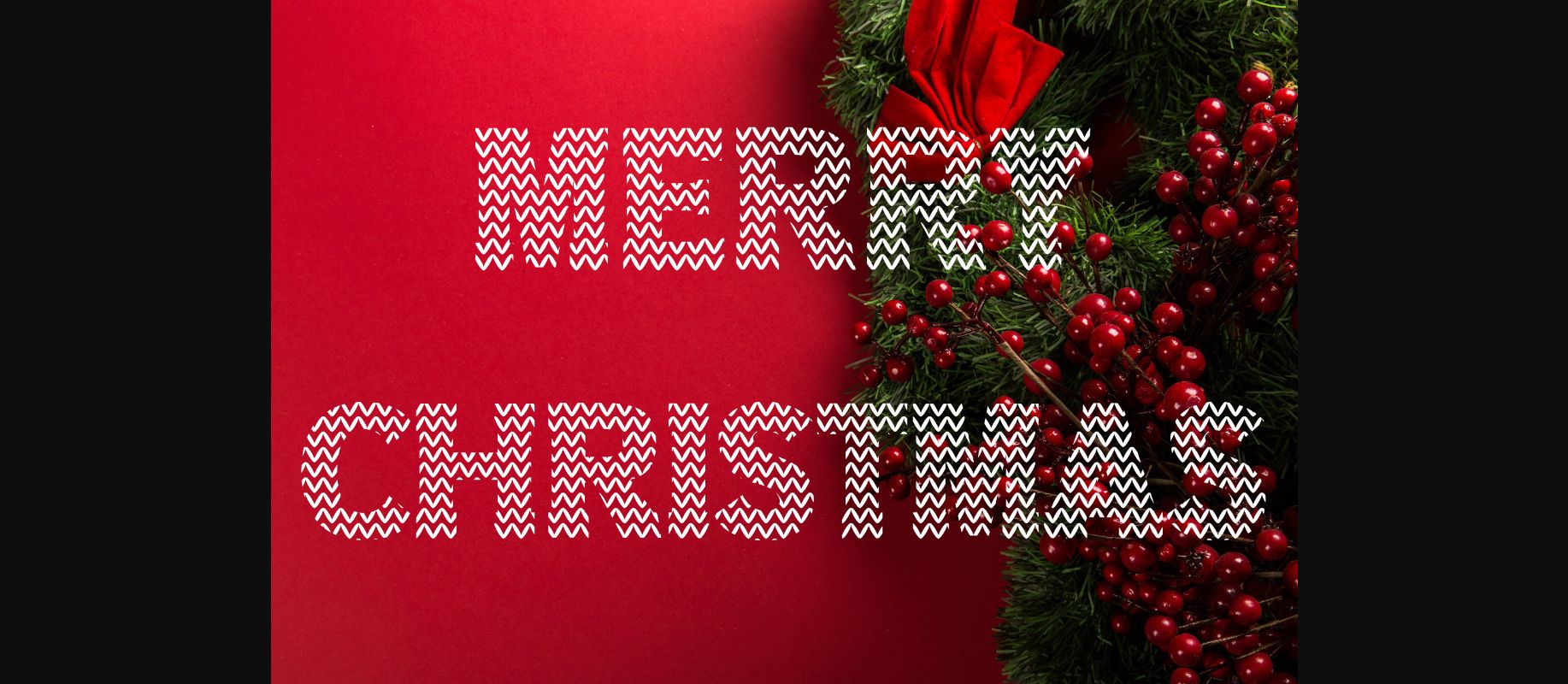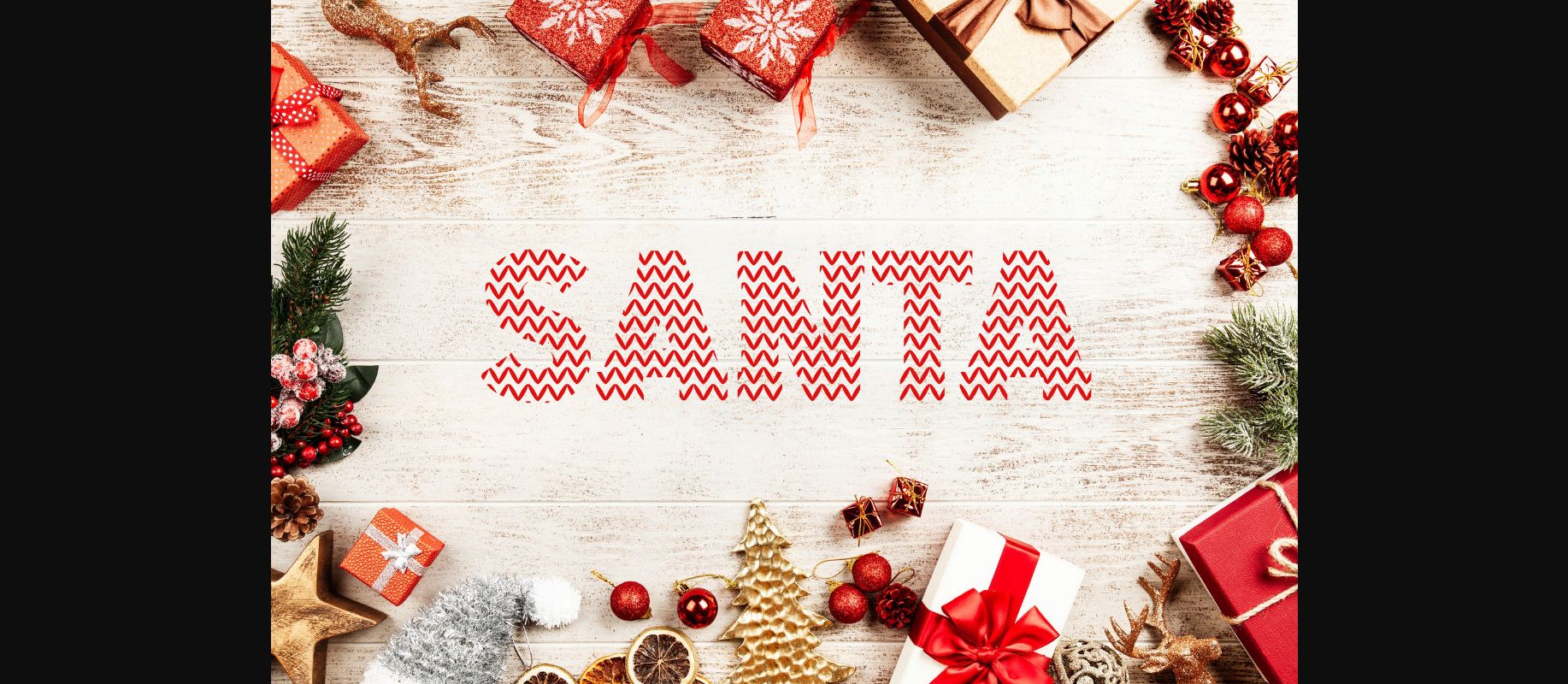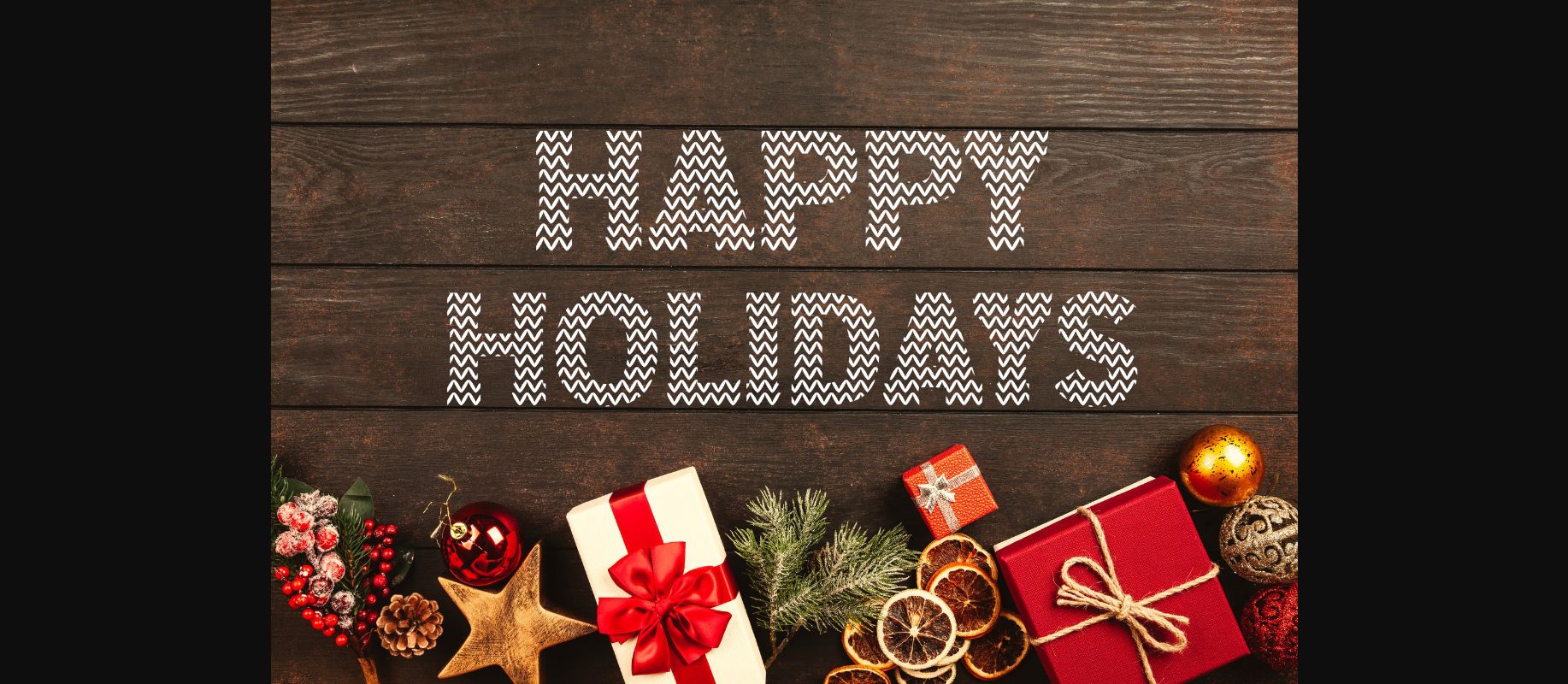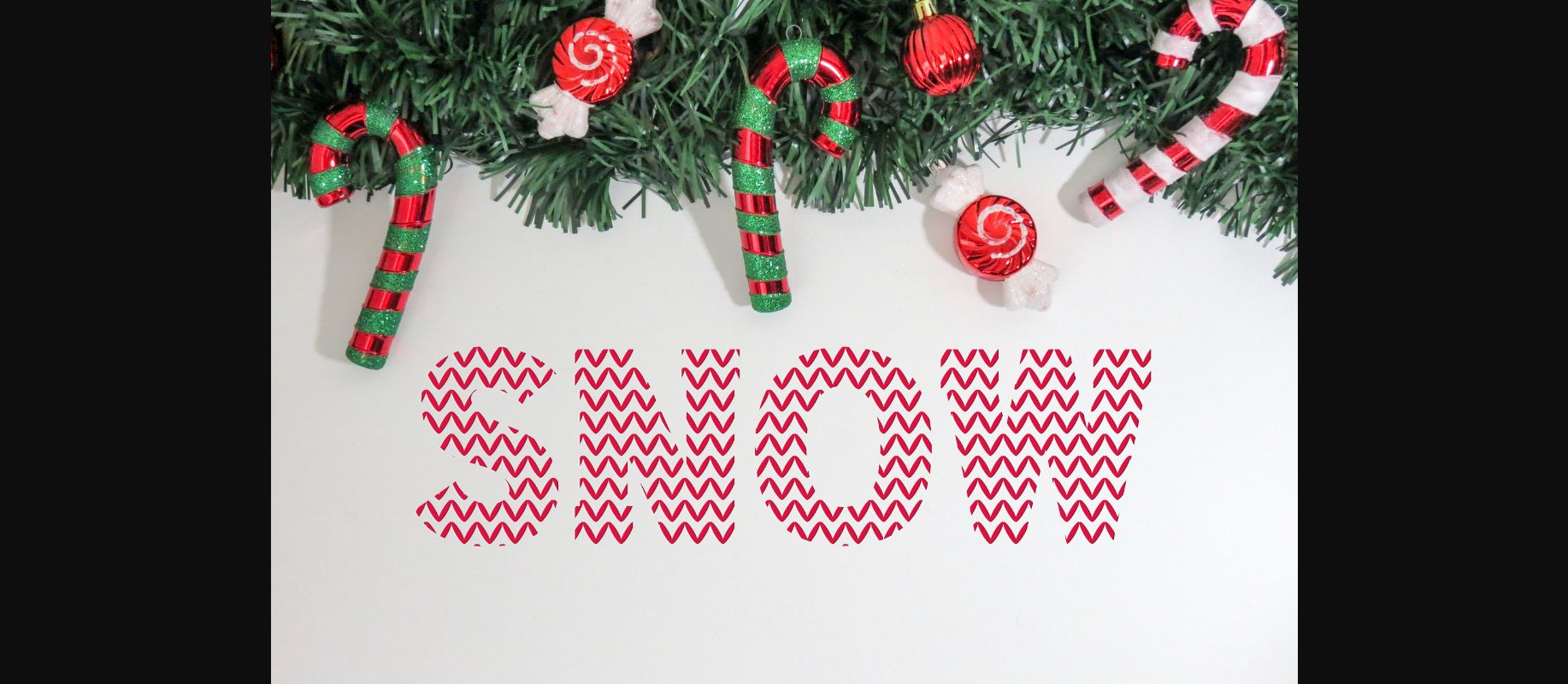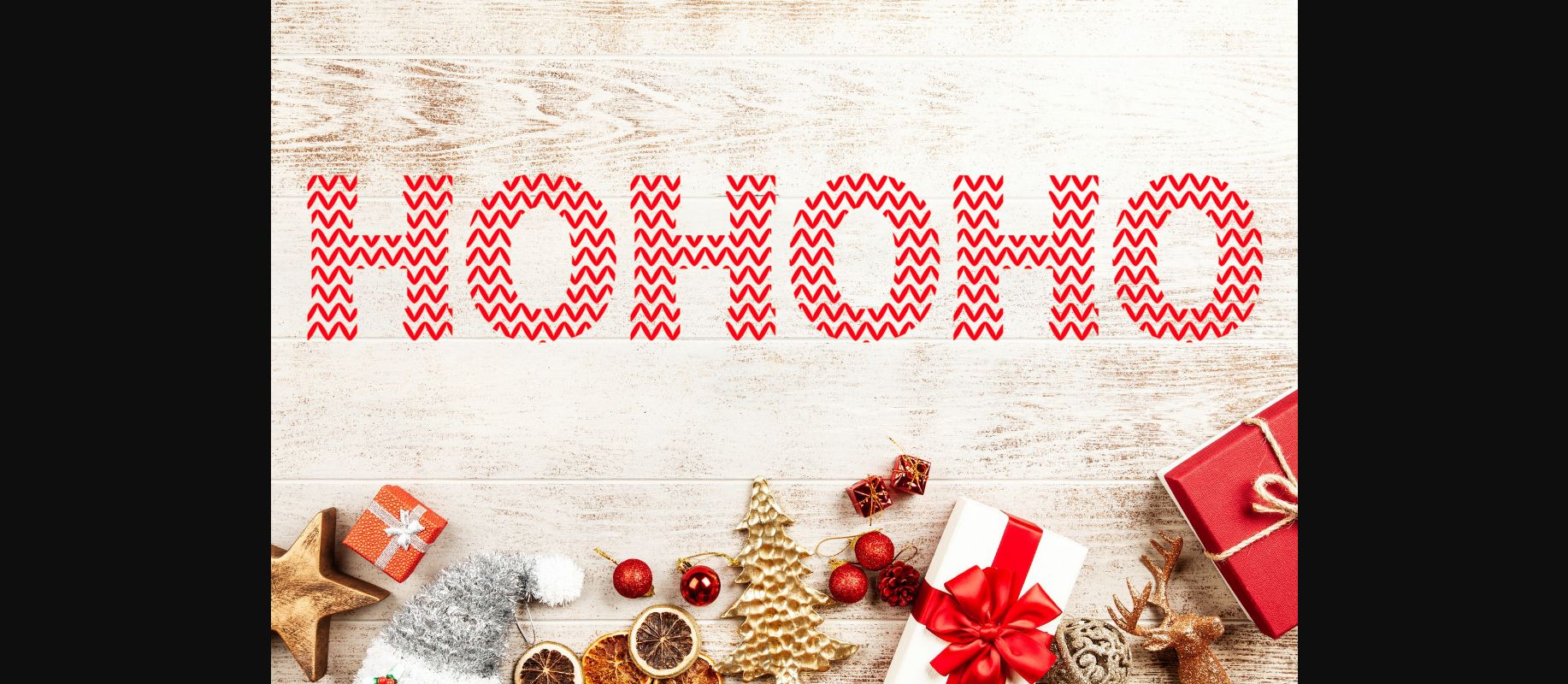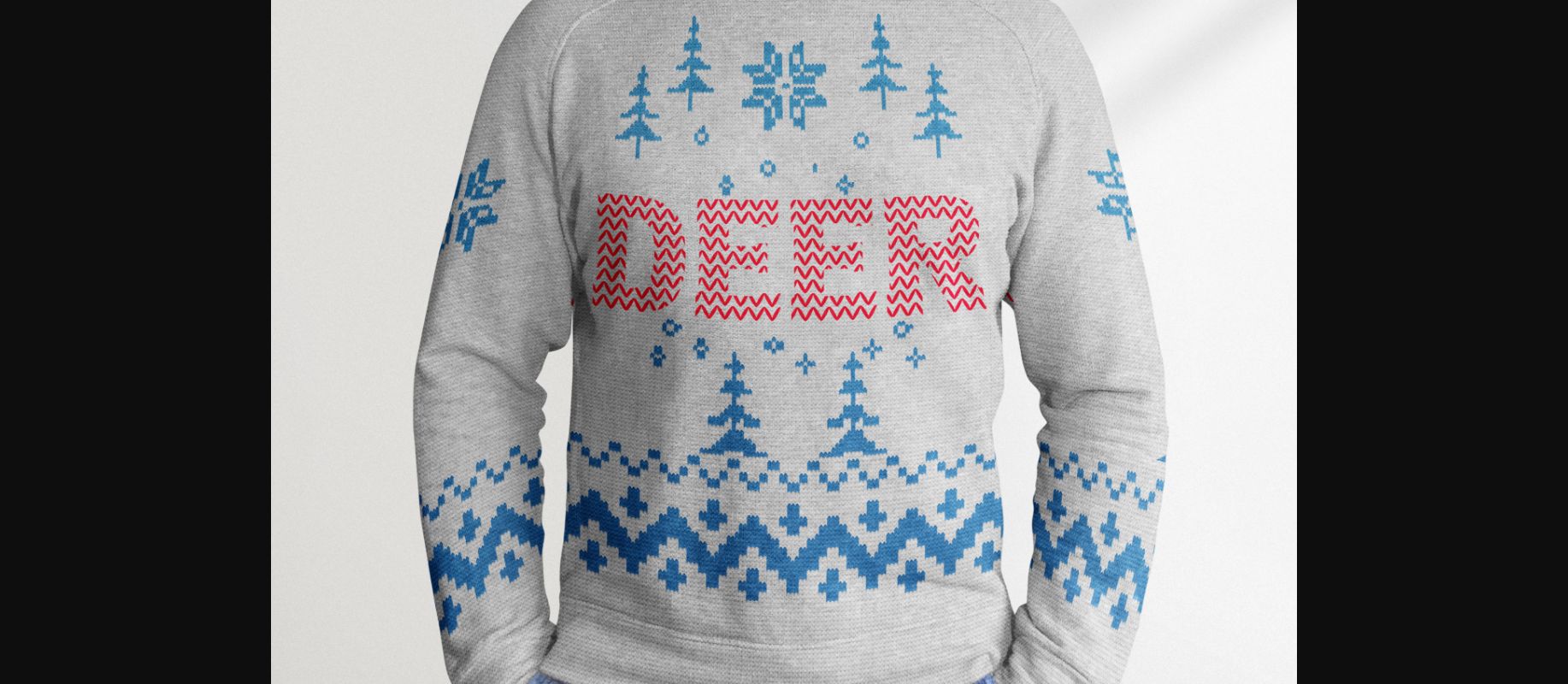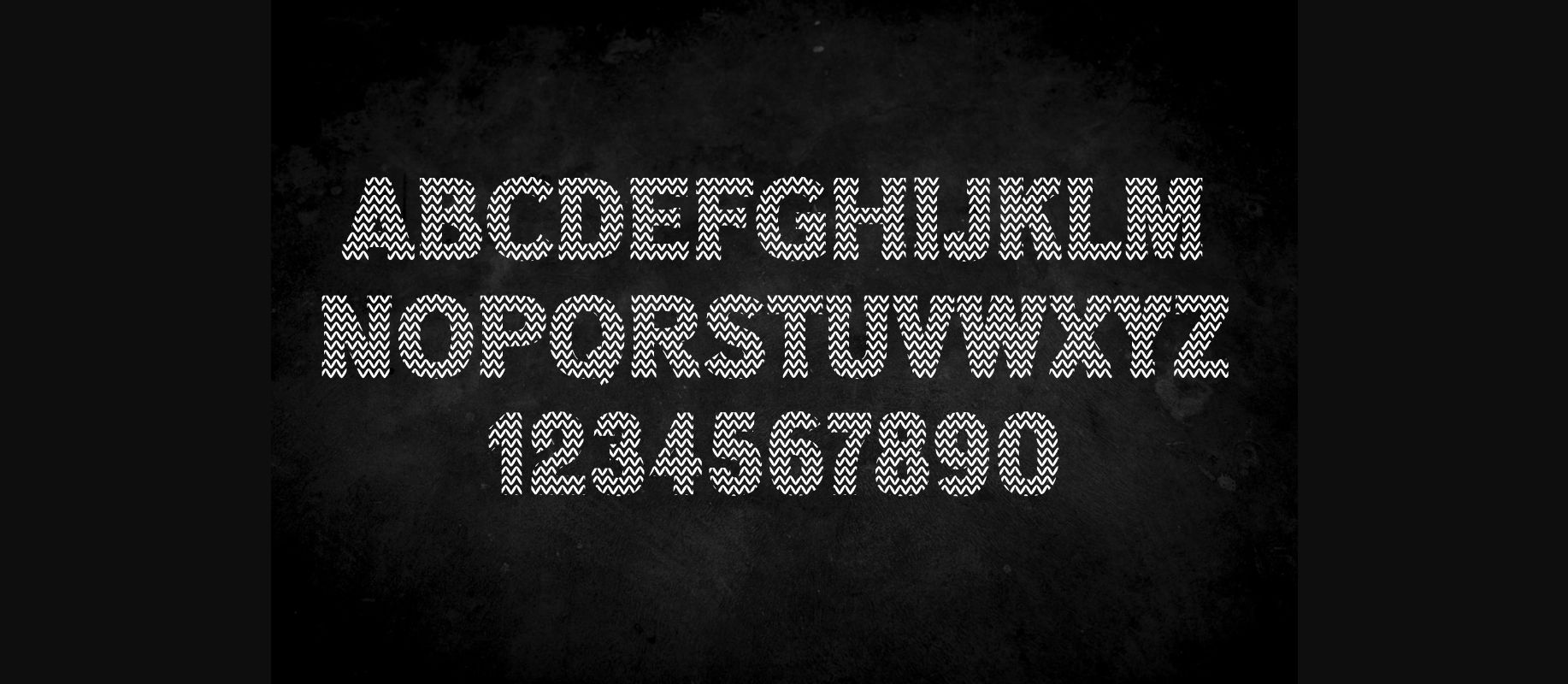
Merry Christmas Font
About Merry Christmas Font
Merry Christmas is an incredibly unique and interesting decorative font. Warm and festive, this font is idea for designing each of your holiday creations.